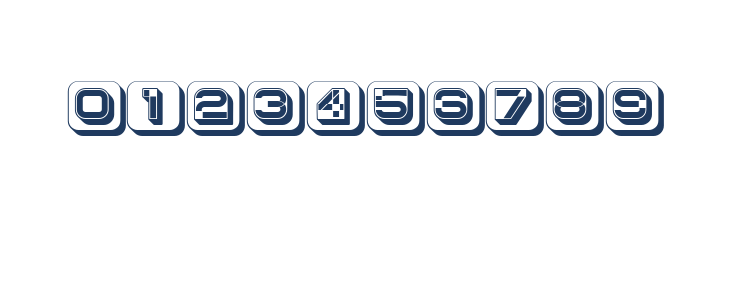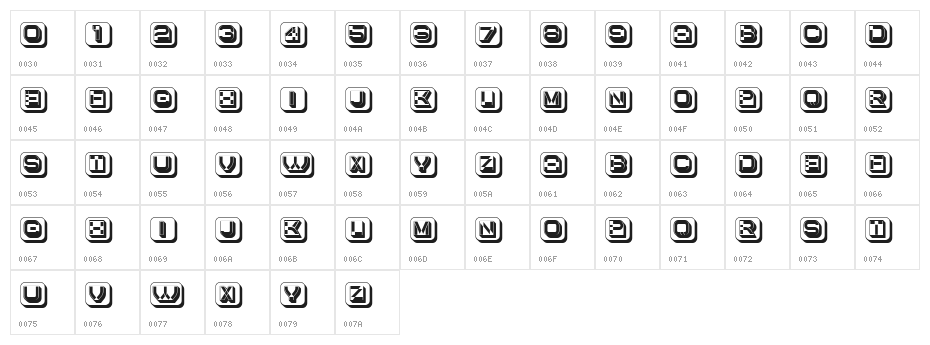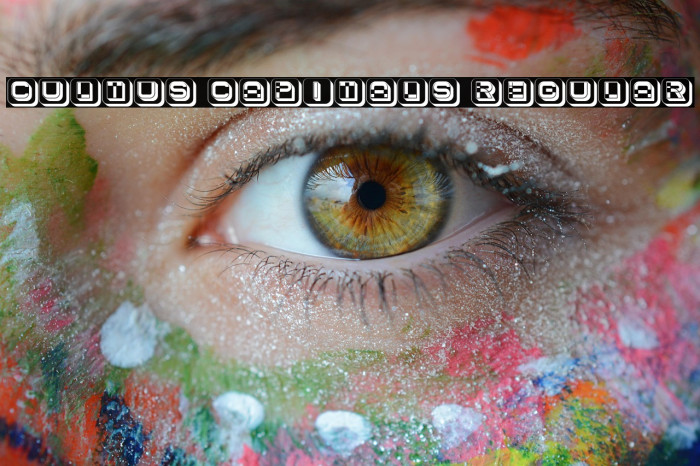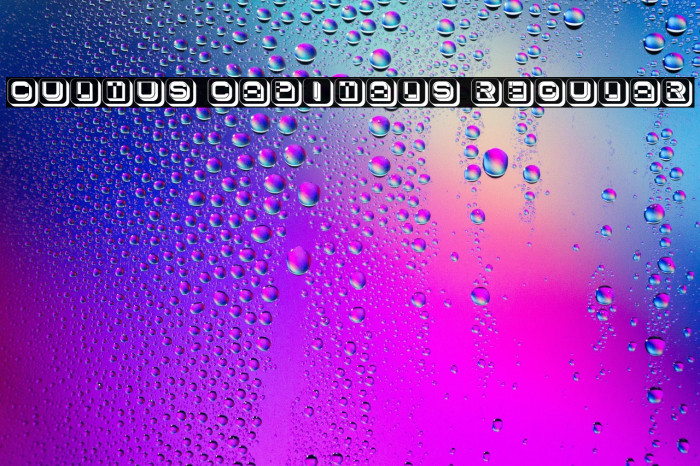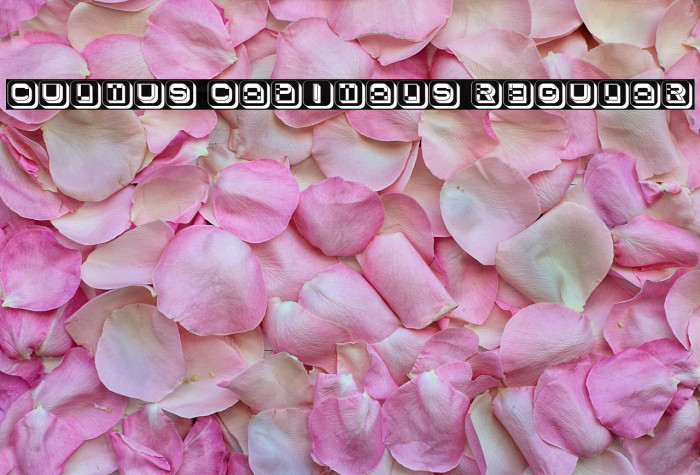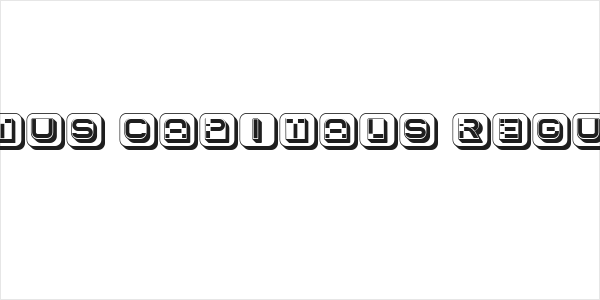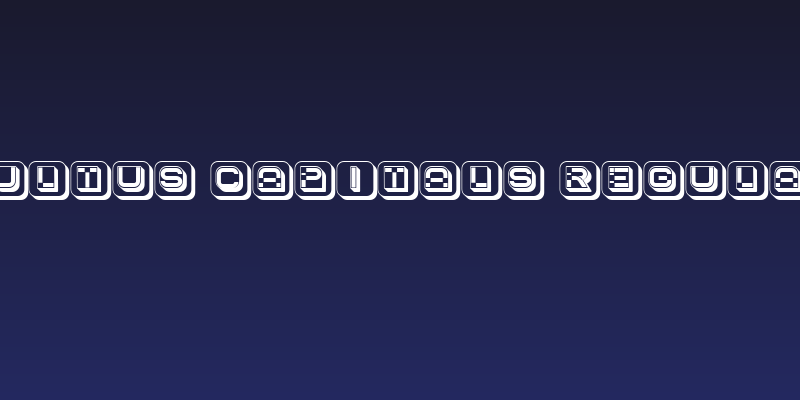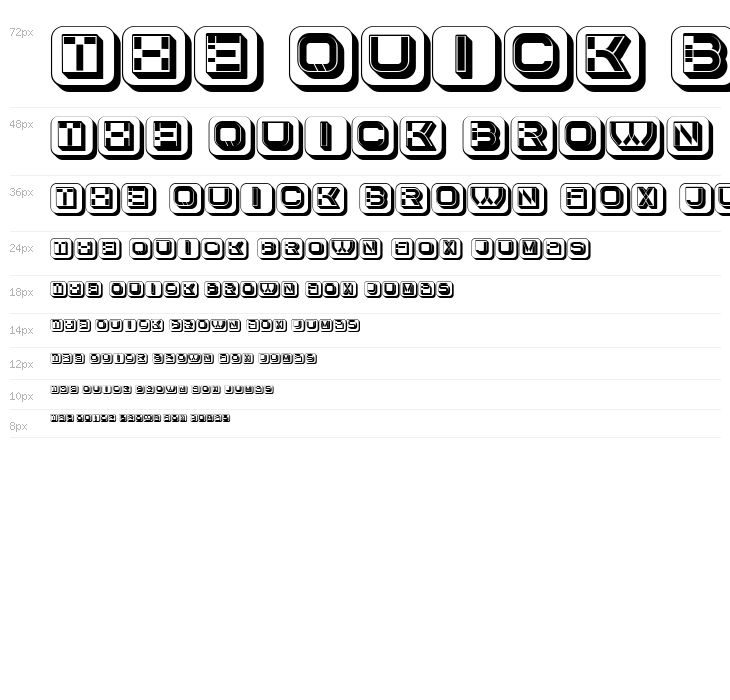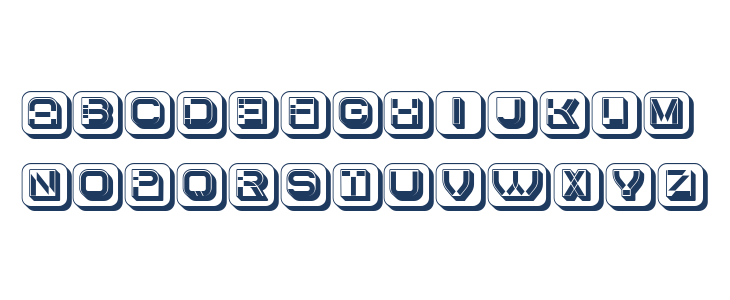
Cultus Capitals Regular Font
Cultus Capitals Regular Description
This font features a bold, decorative style with a three-dimensional effect. Each character is enclosed within a rounded square, giving it a distinctive, blocky appearance. The letters and numbers are designed with a shadow effect, adding depth and a sense of movement. The geometric shapes within the characters create a modern and futuristic look, making it ideal for attention-grabbing designs. The font's unique style is suitable for projects that require a strong visual impact, such as posters, logos, and headlines. Its playful yet structured form makes it versatile for various creative applications.